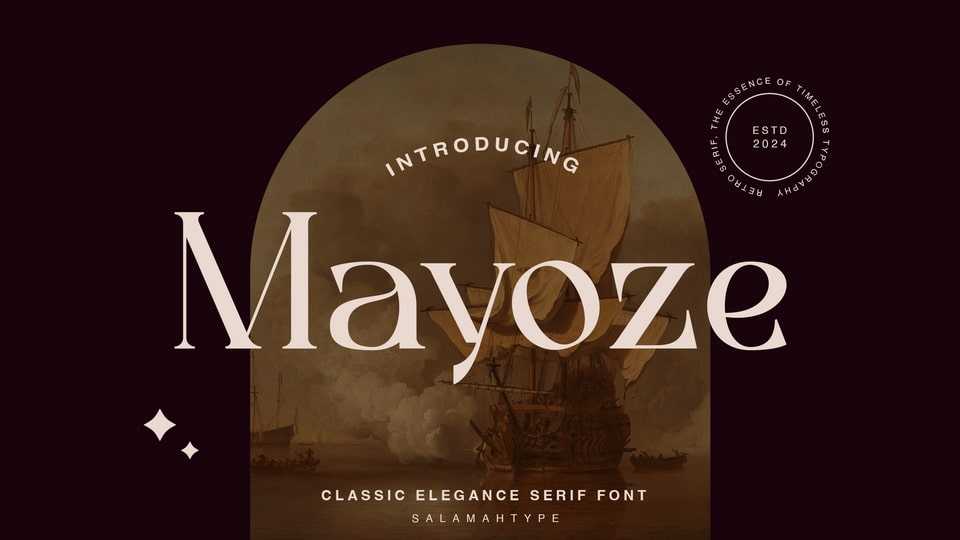
Download Mayoze font, a serif typeface that embodies classic and elegant values. Mayoze font will appear beautifully from every unique angle and is generally suitable for logos, posters, magazines,